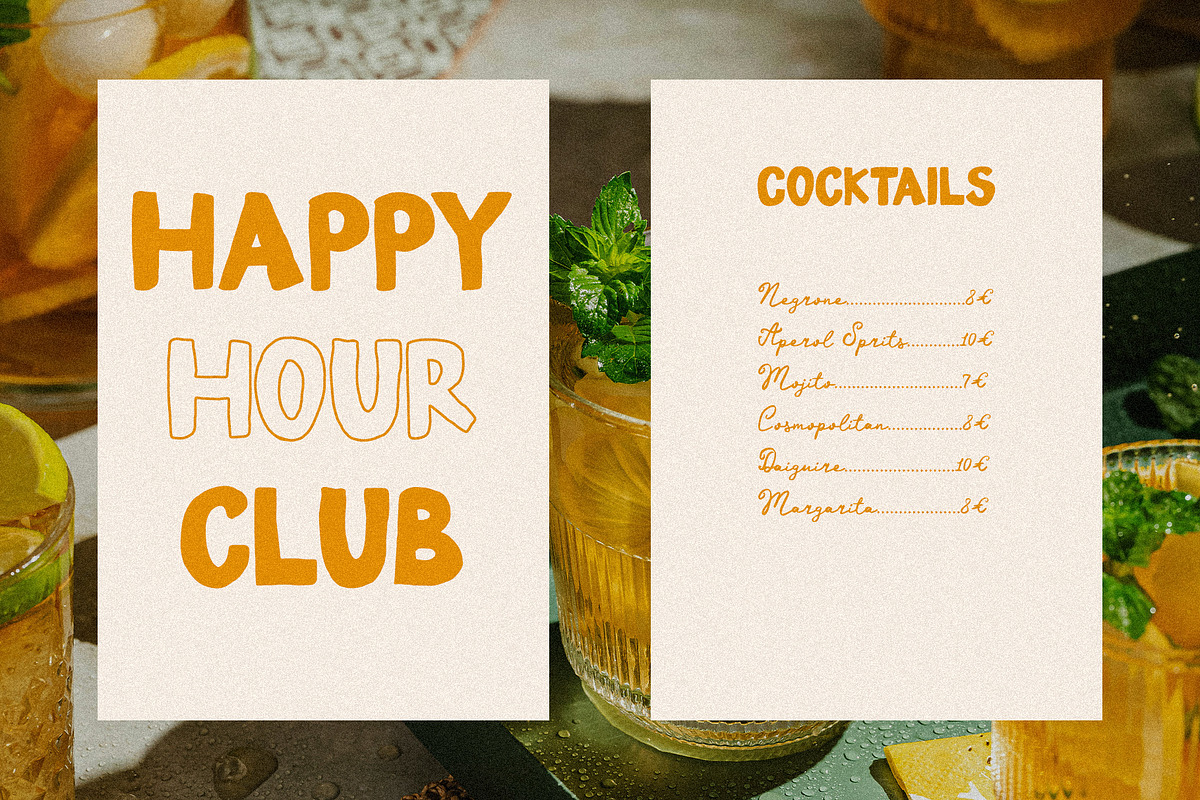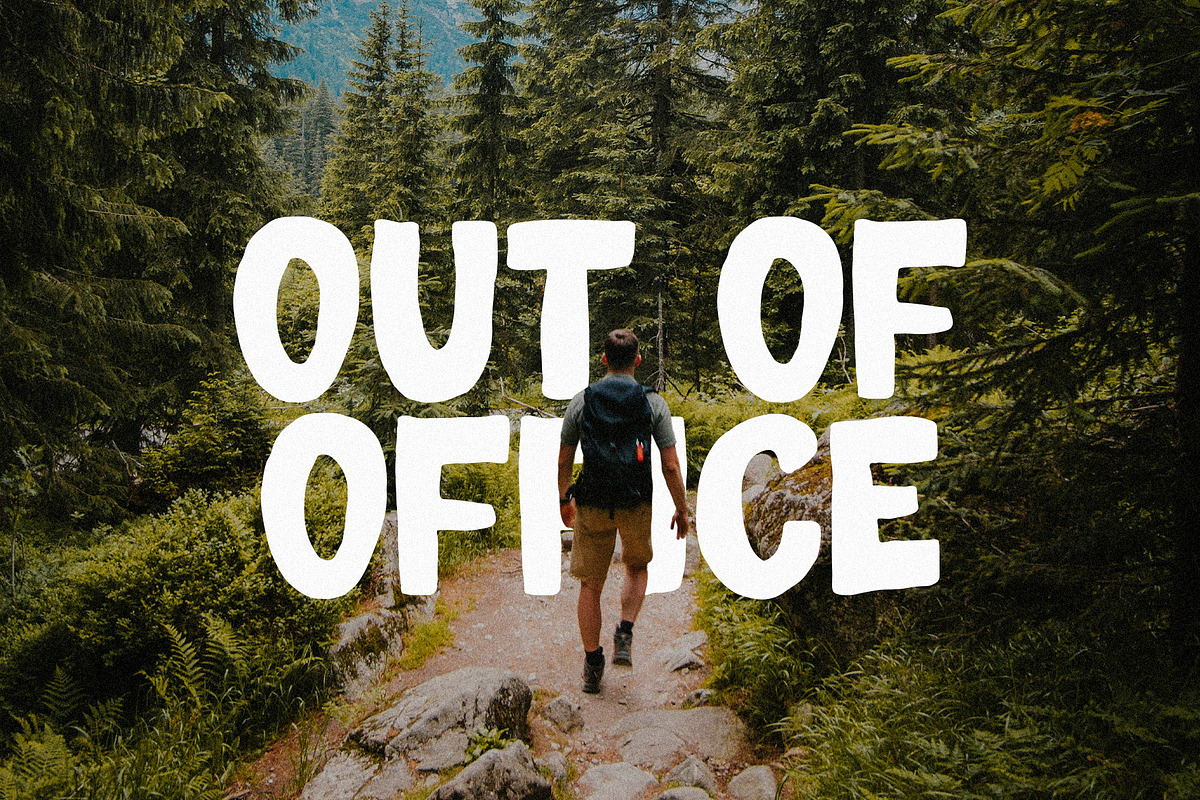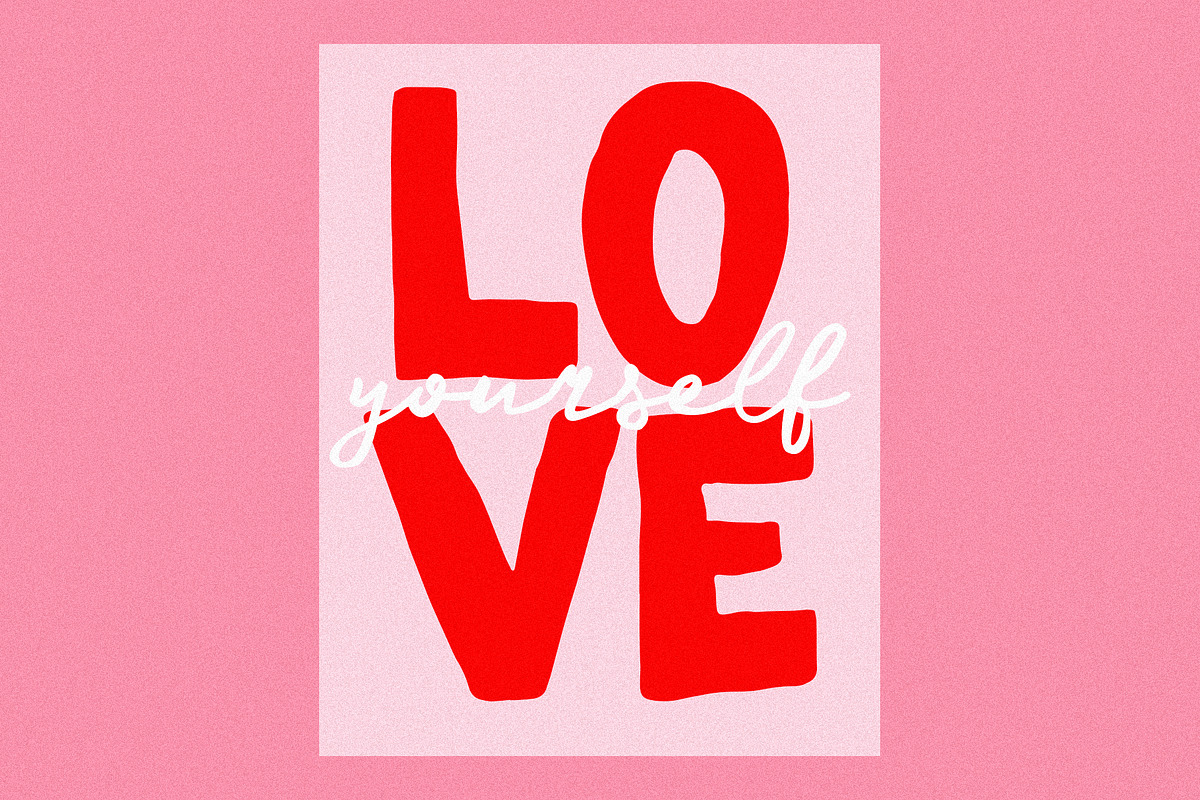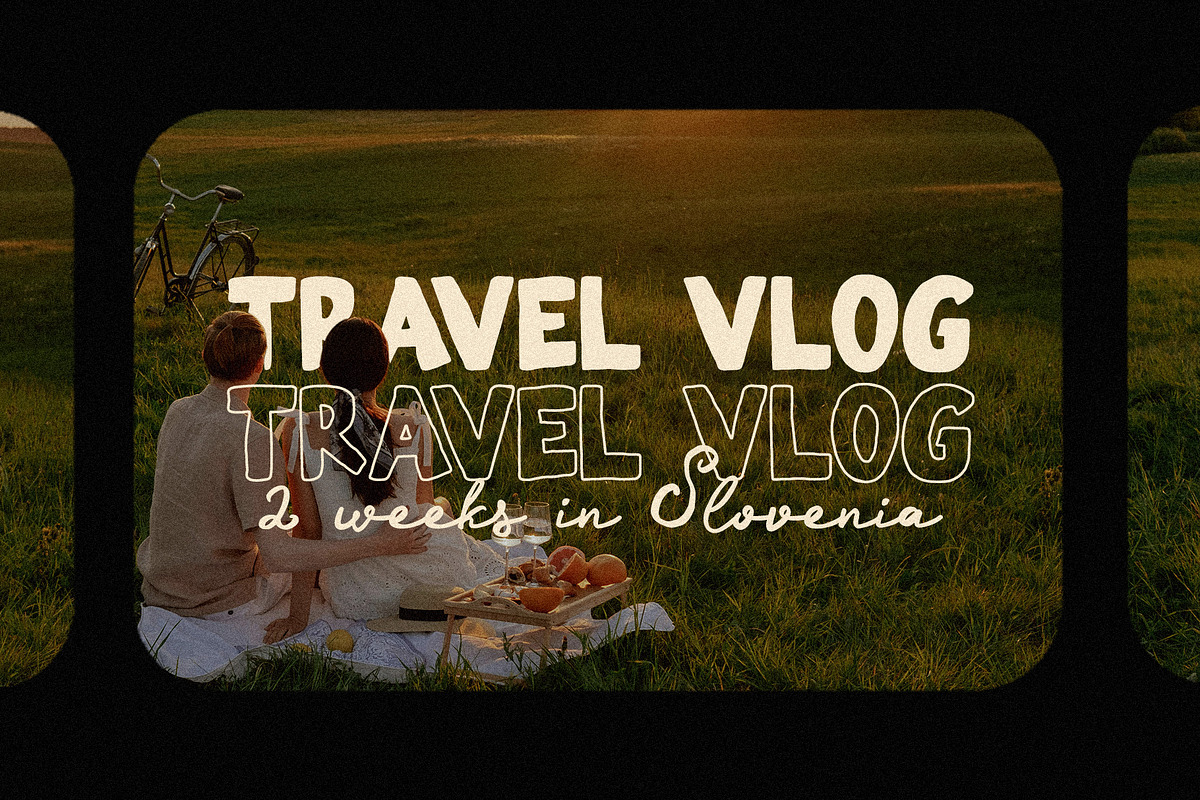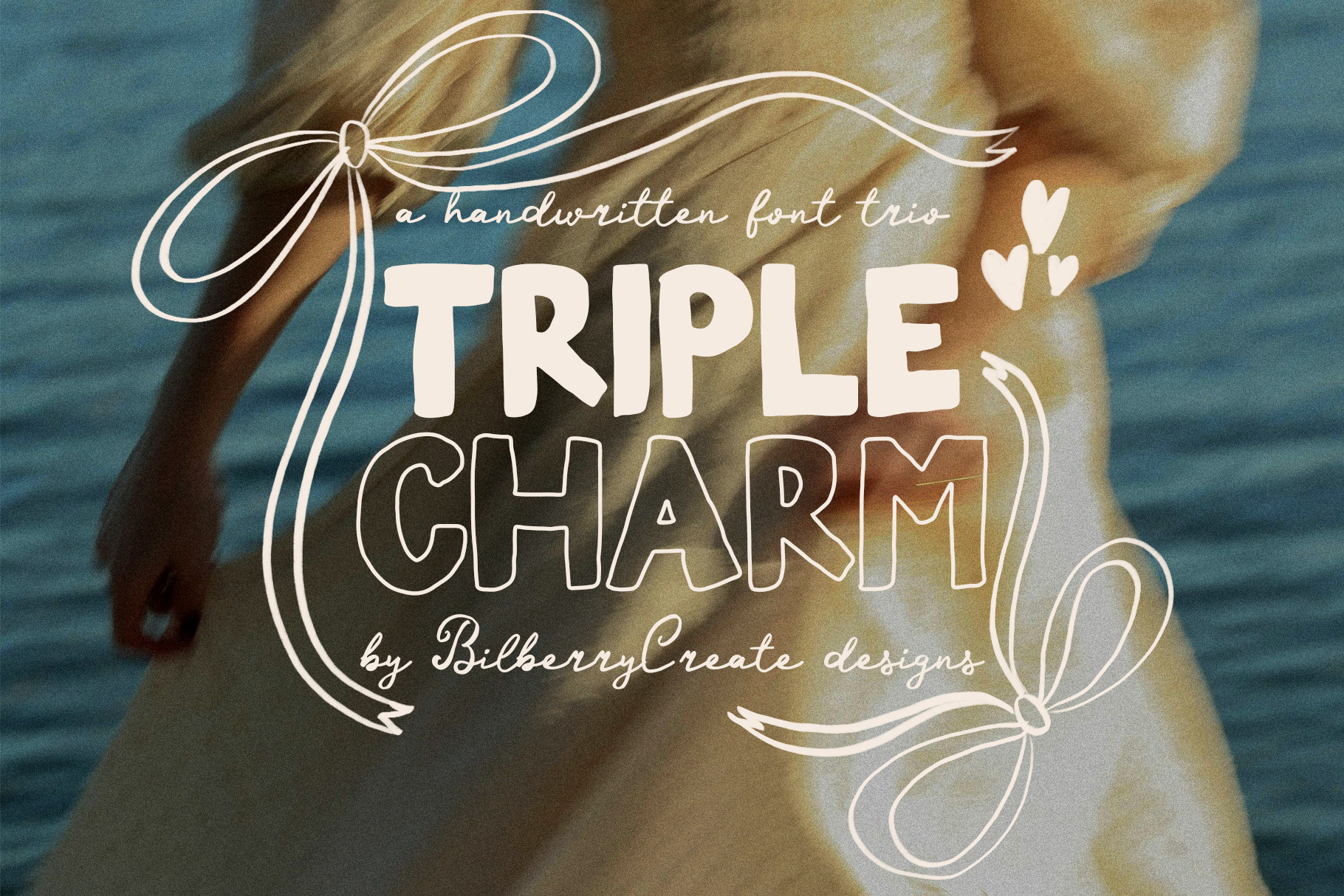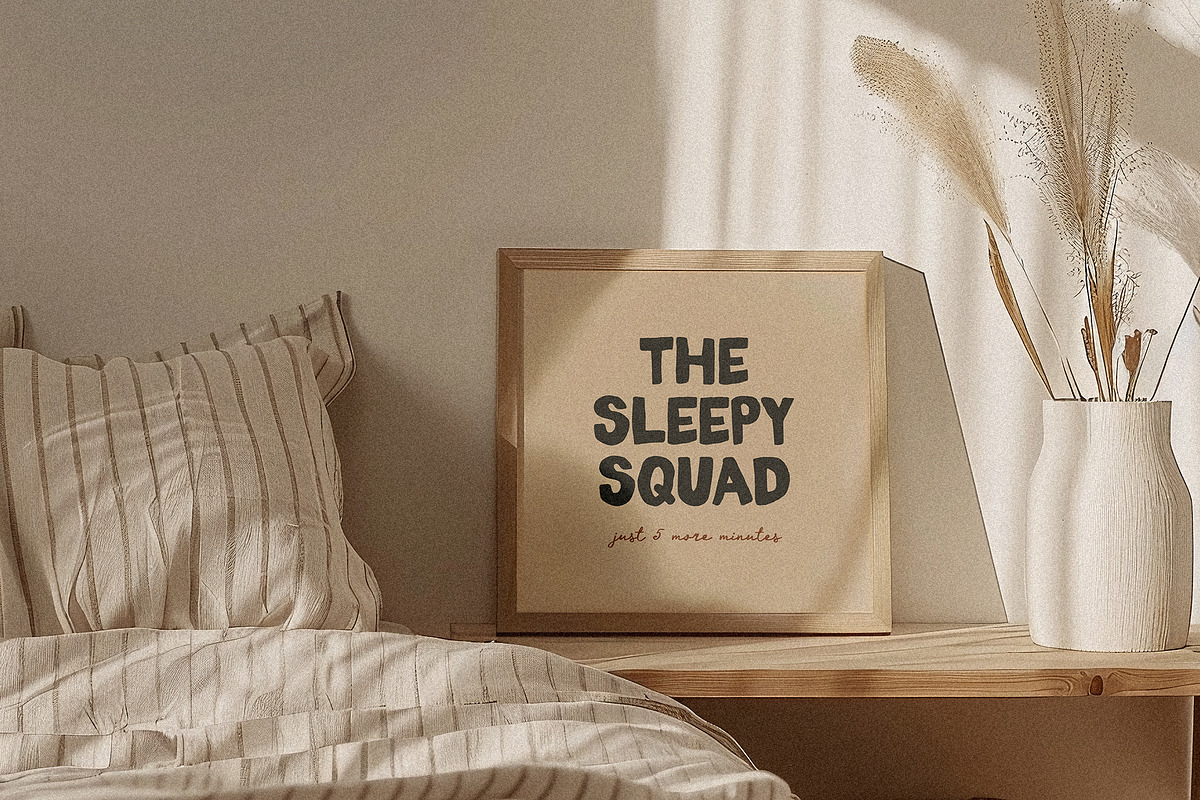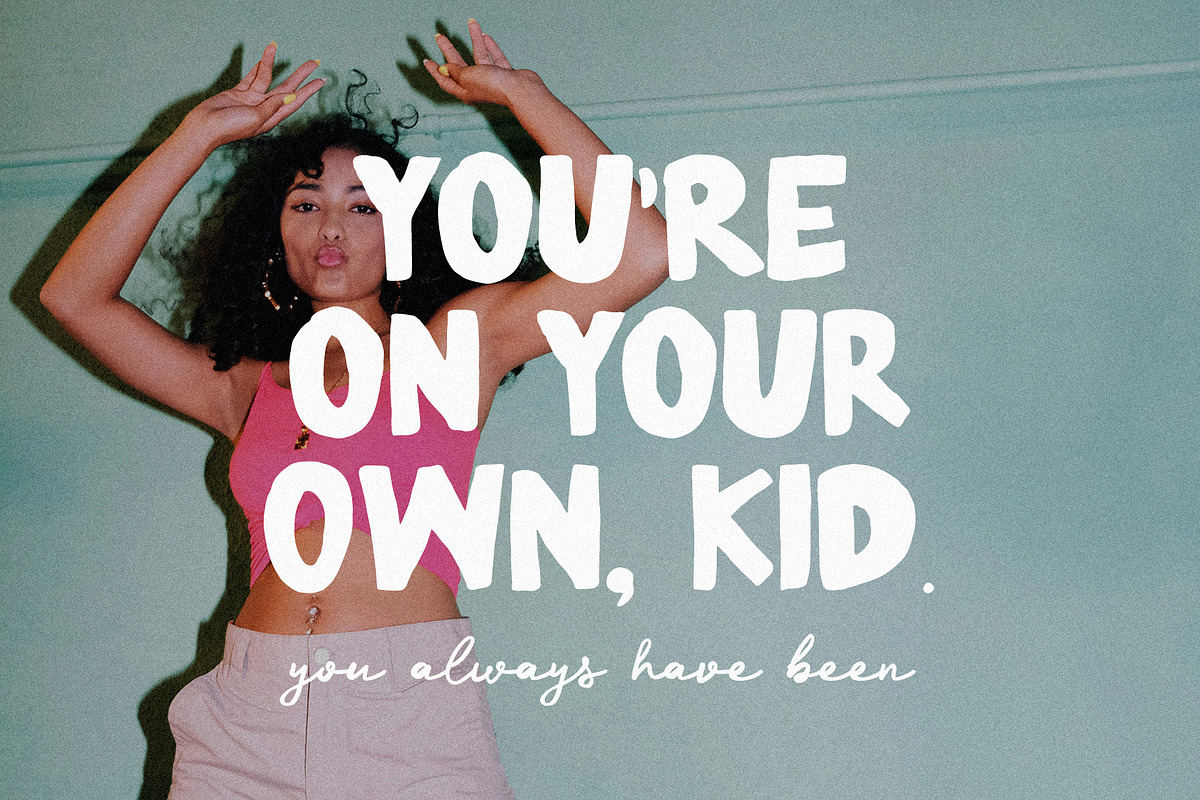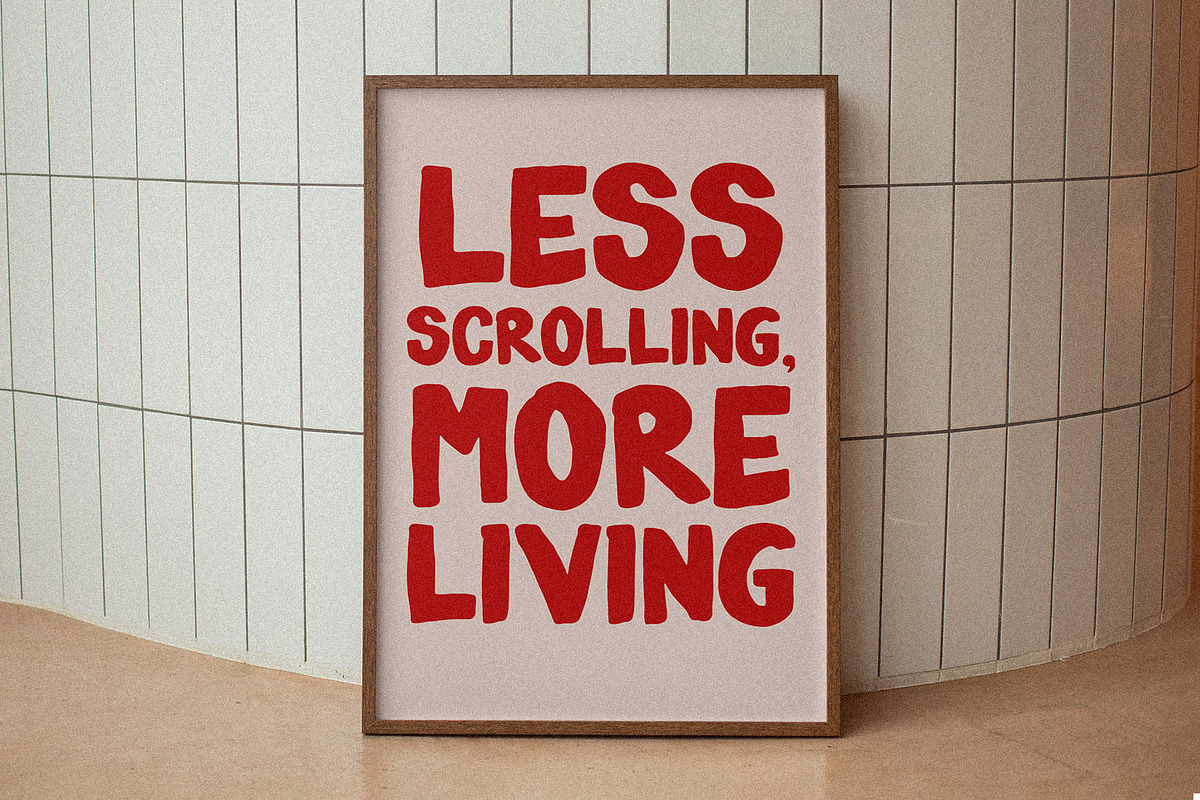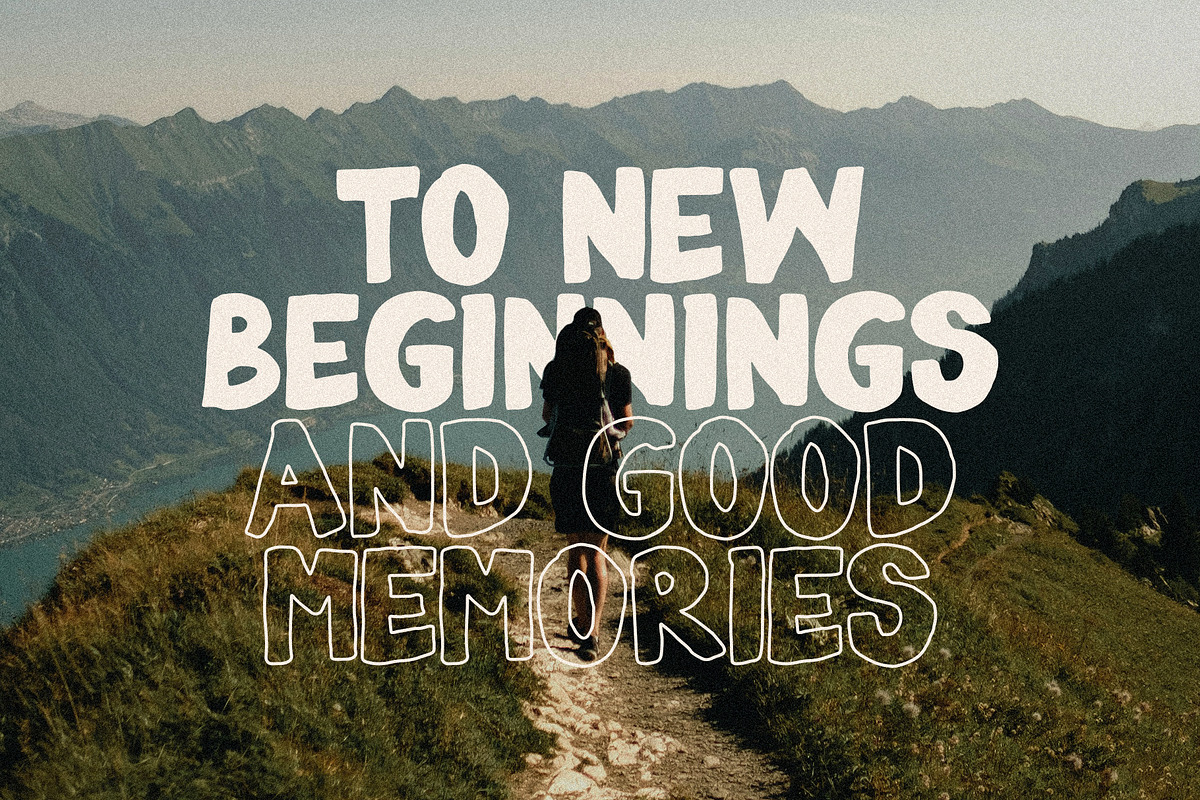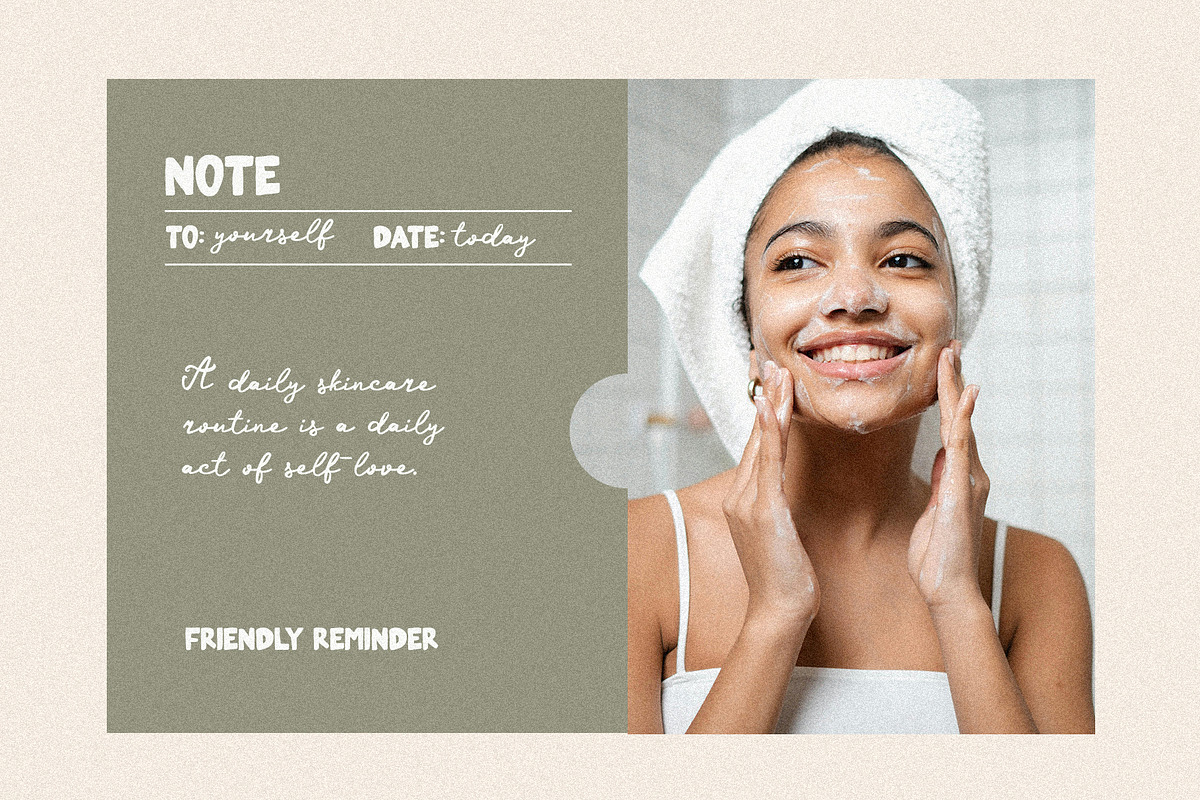
Triple Charm Font Trio
Triple Charm Font Trio - Casual handwritten fonts!
This is a perfect handwritten fonts for any project. Be sure to click on the image to see all elements. This product was created to help you make your digital images even more beautiful and unique.
- Triple Charm Script
- Triple Charm Sans
- Triple Charm Outline Sans